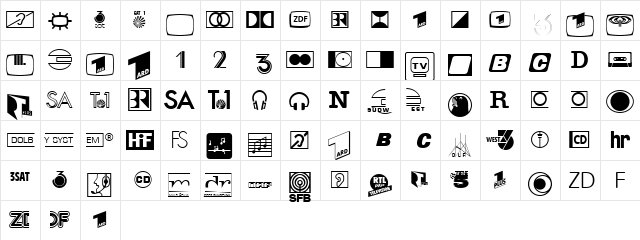
Linotype Audio Pi Regular
Design Context for Linotype Audio Pi Typeface
Linotype Audio Pi is a composed and adaptable typeface that performs quietly and consistently across a wide range of design contexts.